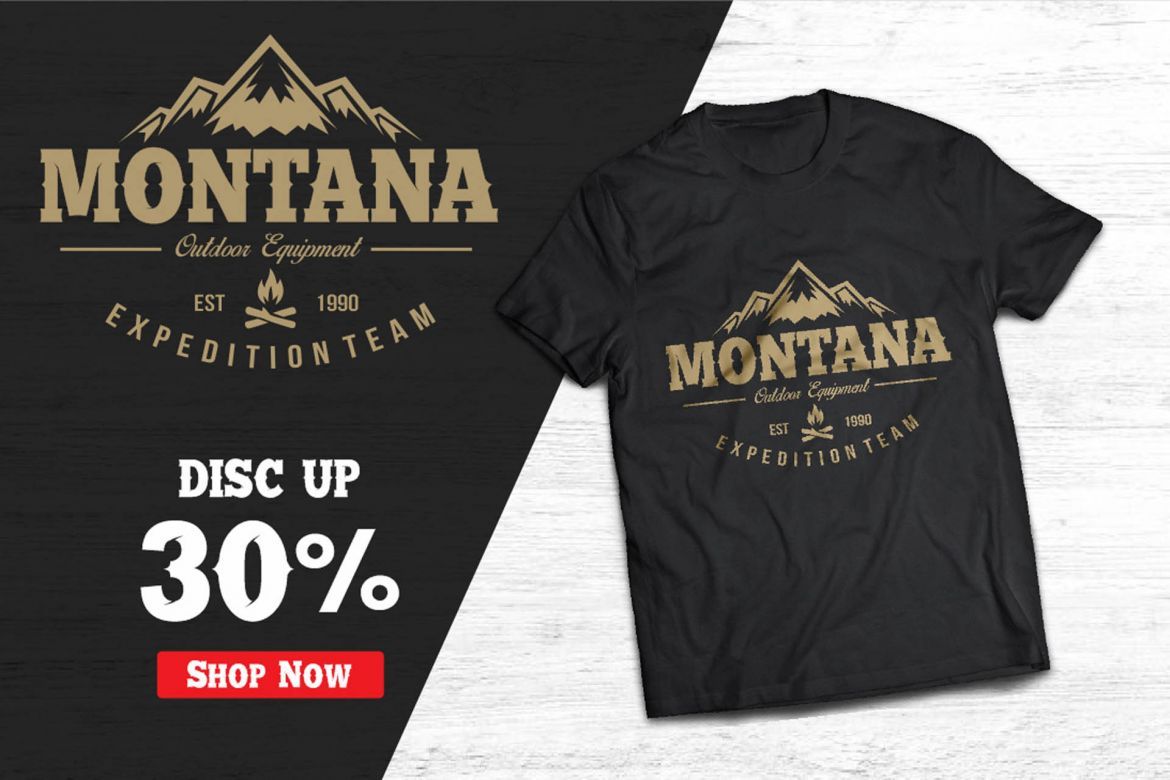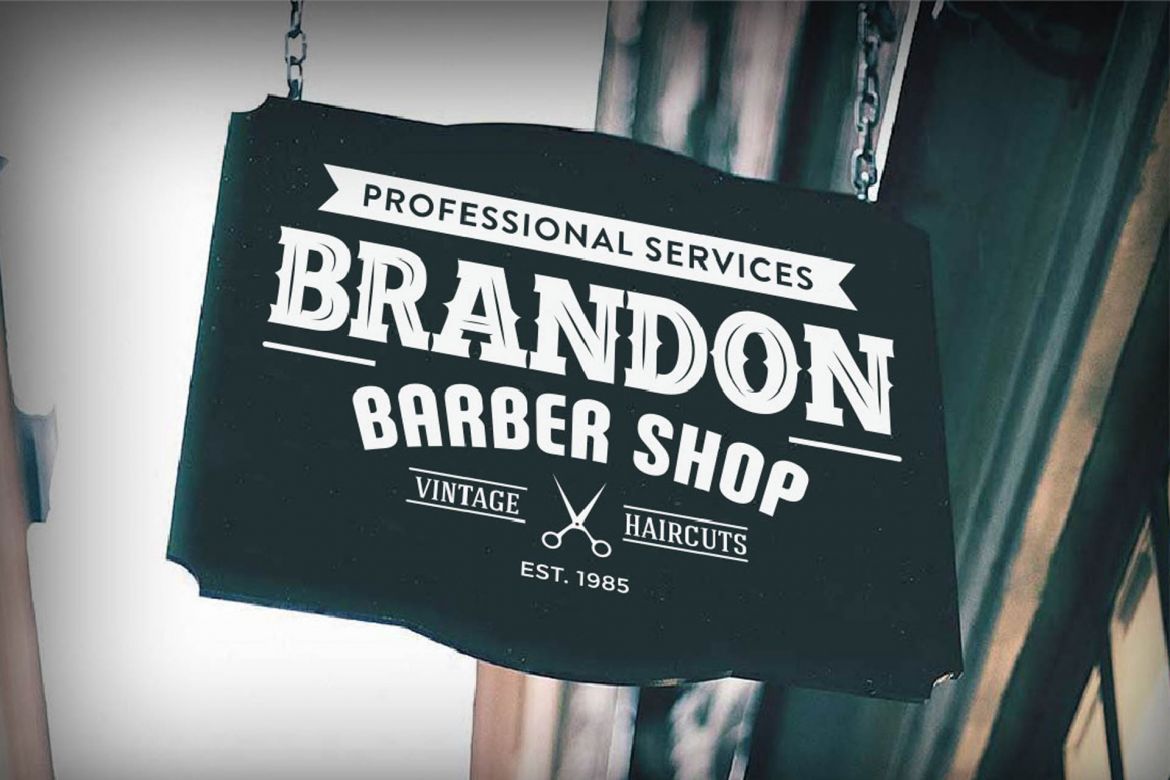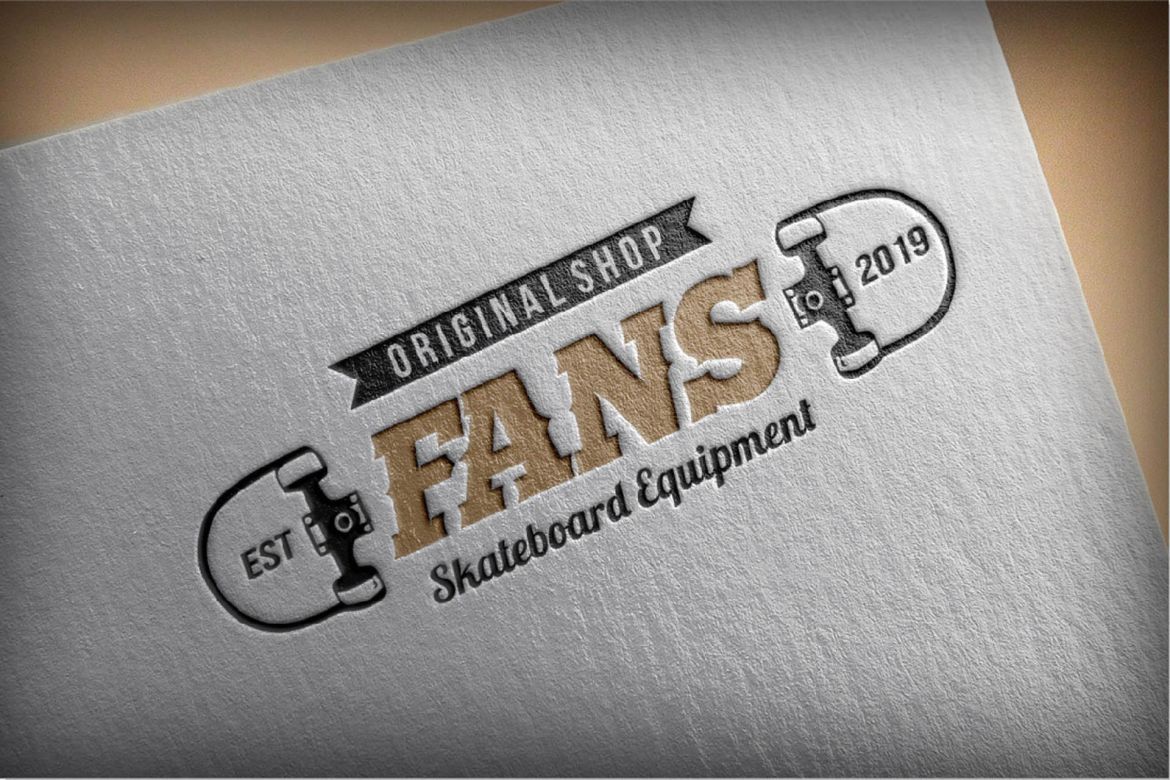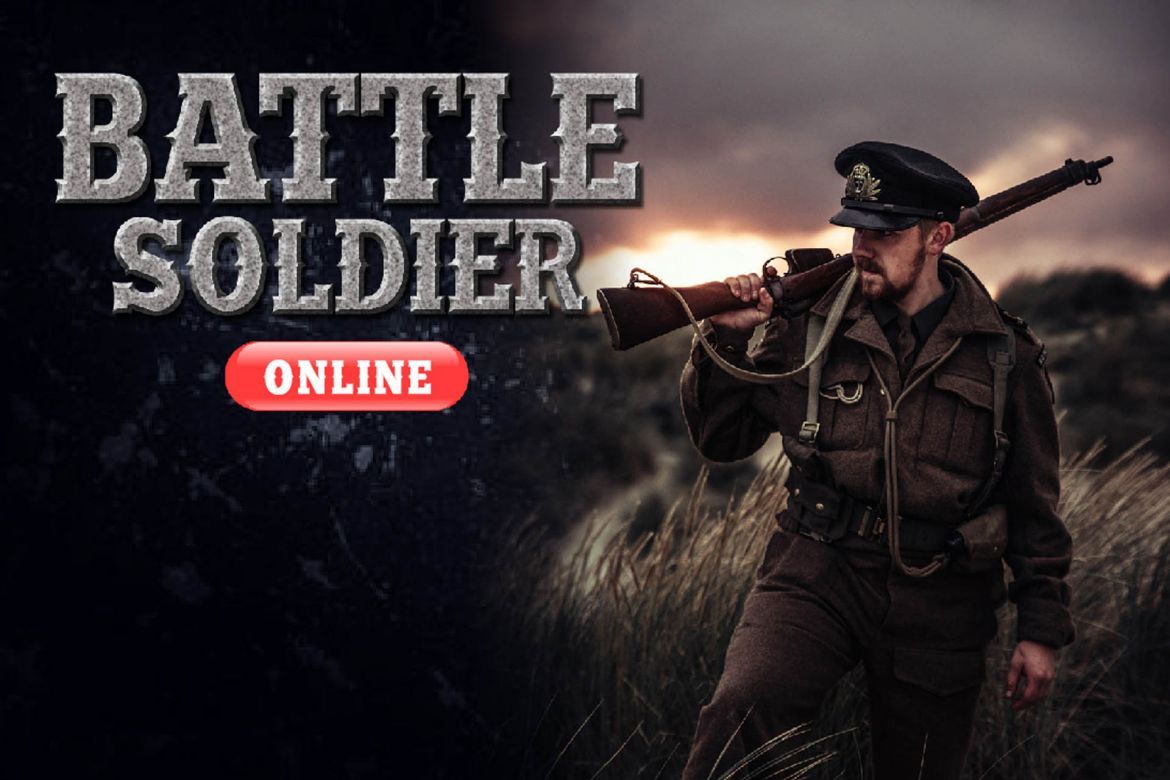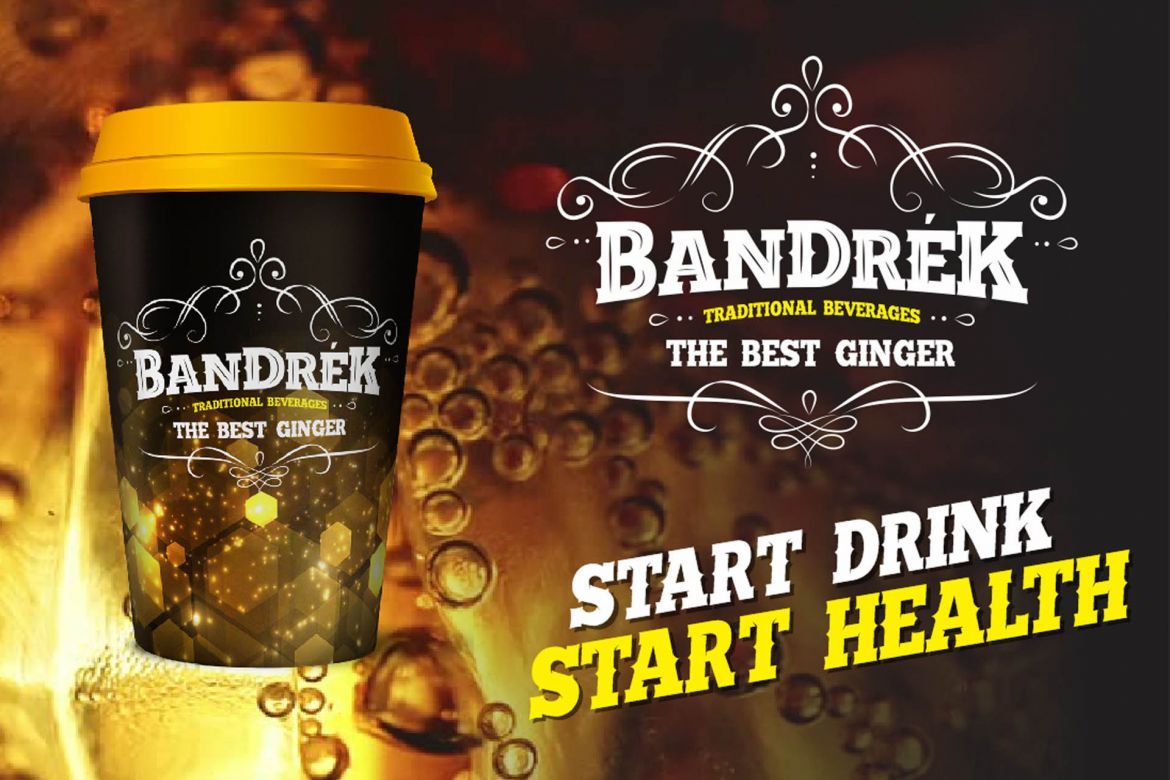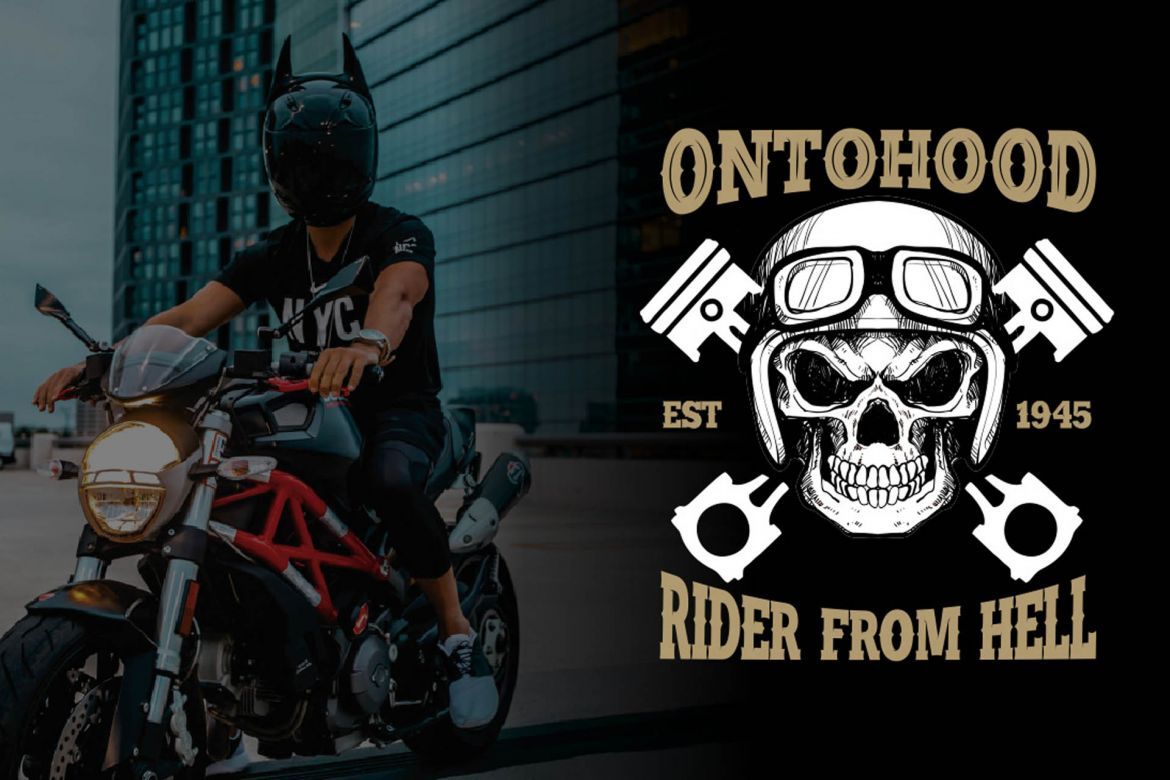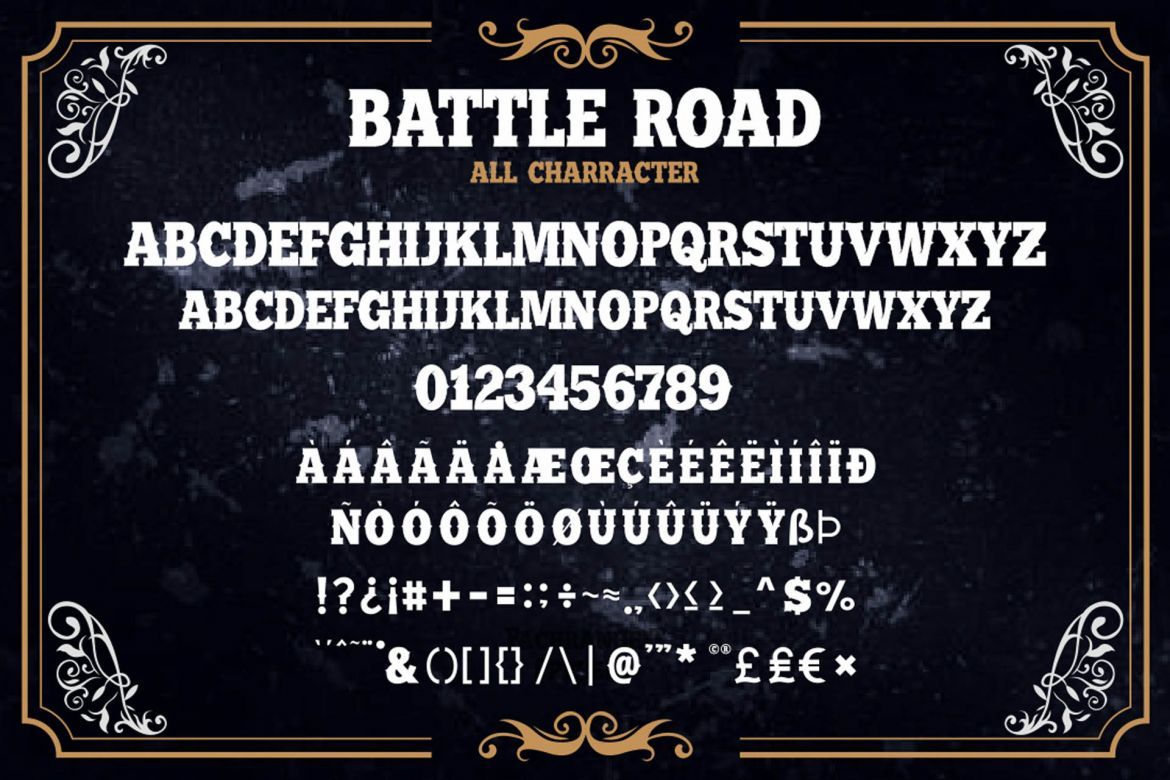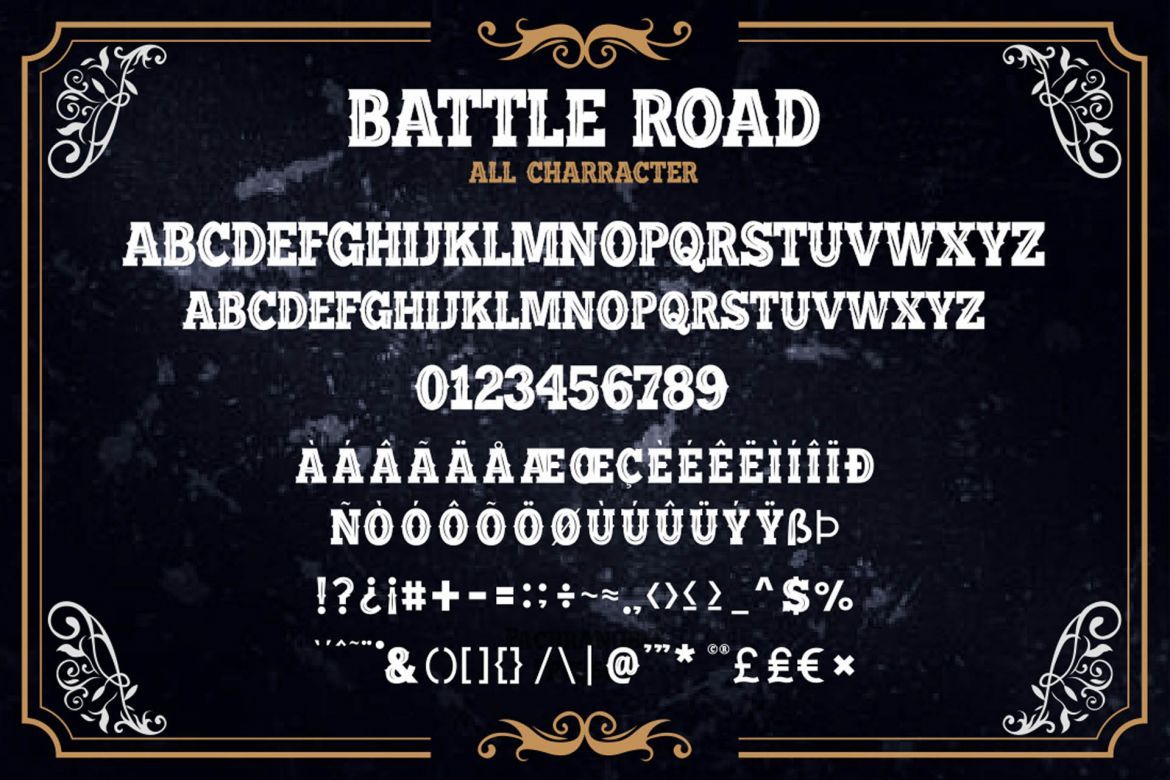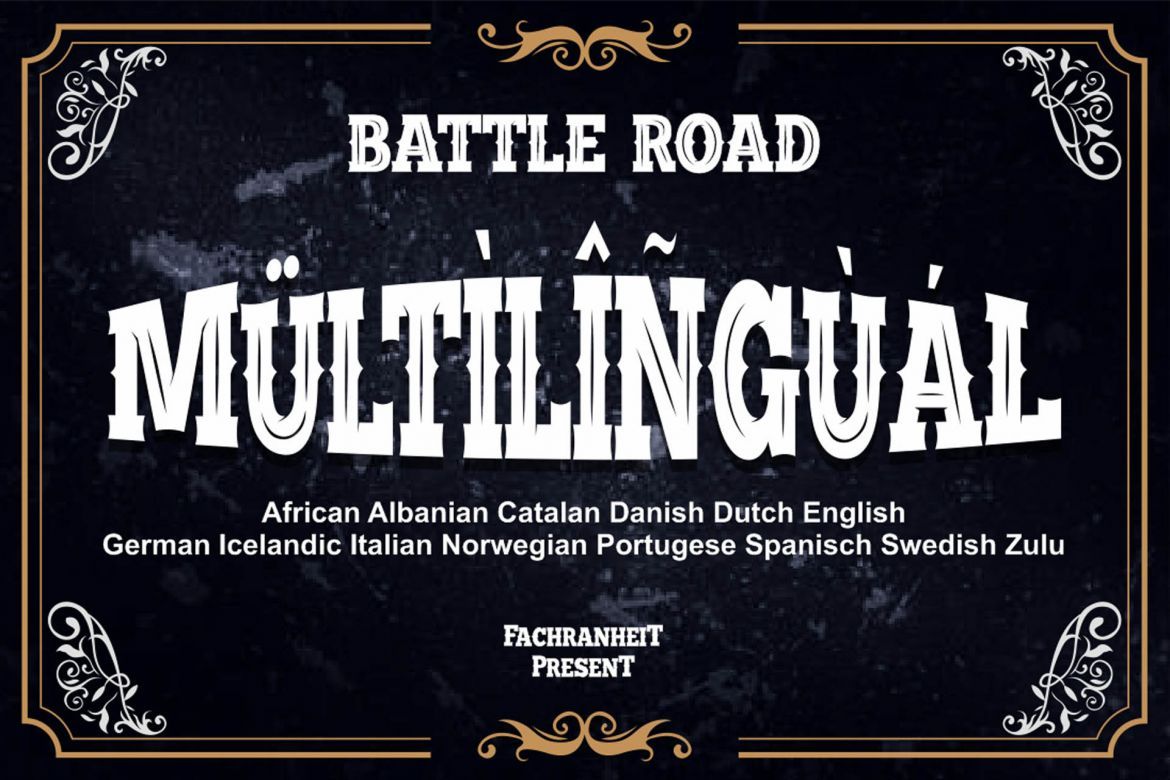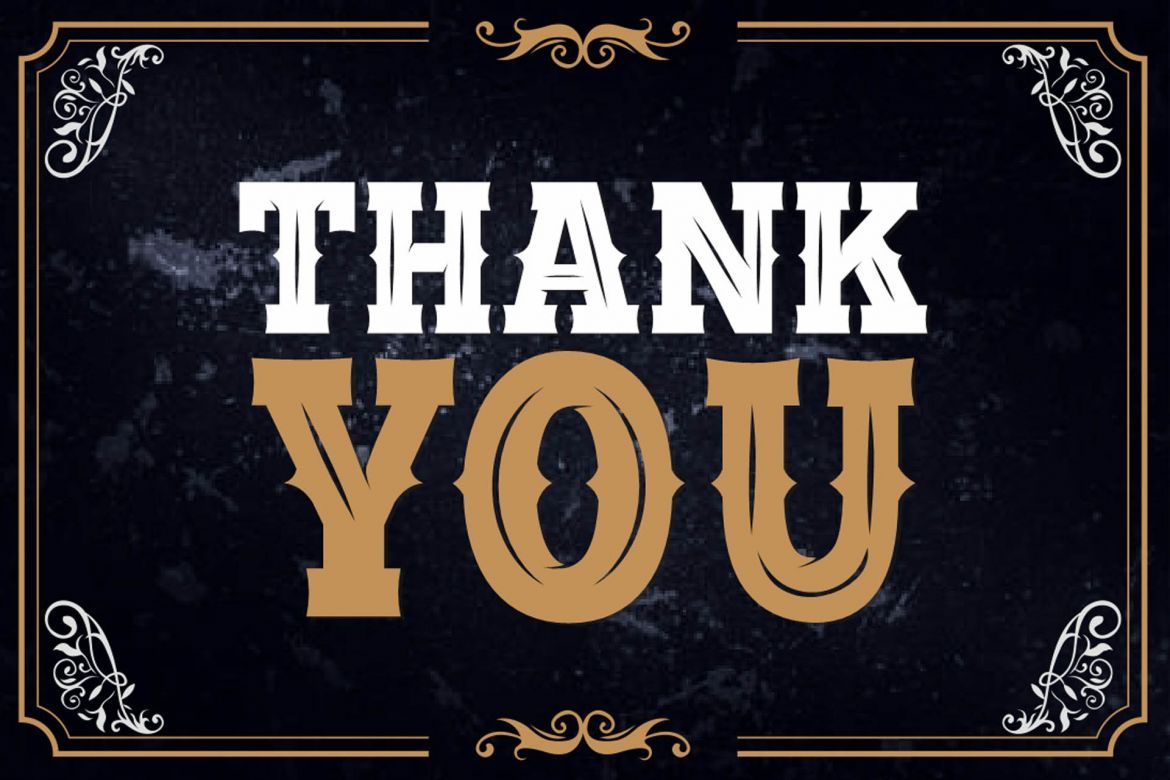
BATTLE ROAD Display Font
The Battle Road is an bold, vintage display typeface. It has regular characters and a distinct retro feel that will turn any creative project into a stand out.